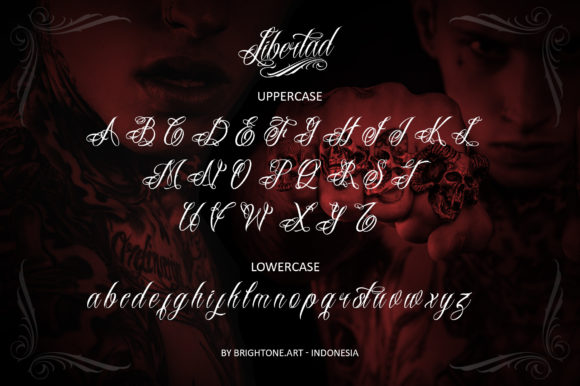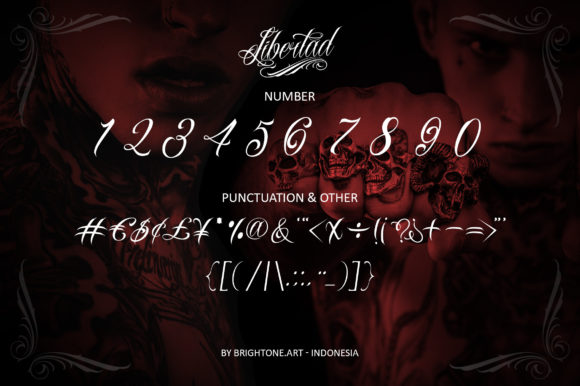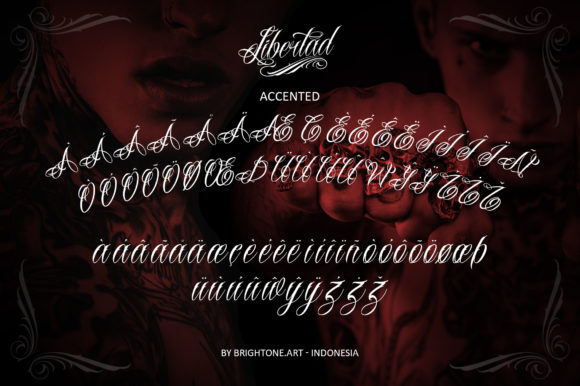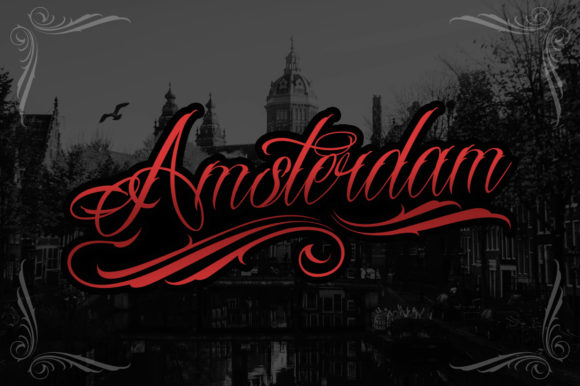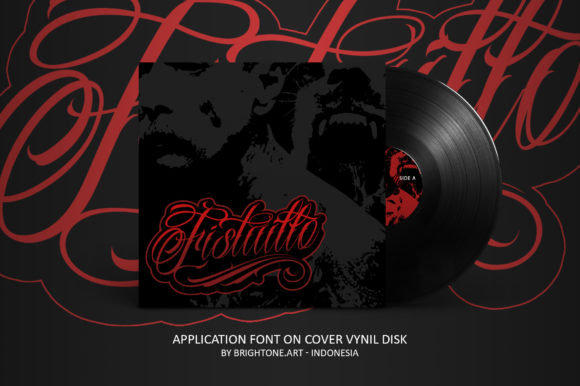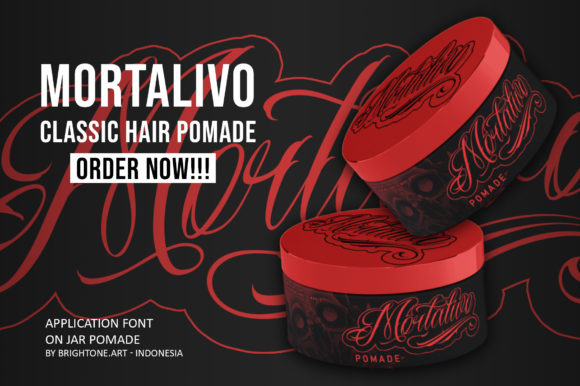
Introduction to Libertad Font
Have you ever stared at a blank canvas, eager to bring your tattoo design to life, only to be stopped by the perfect font eluding you? The hunt for the perfect typography can be a tedious and time-consuming process, but what if I told you that your search is over? Enter the Libertad Font, a masterpiece of handwritten elegance that will elevate your creative project to new heights.
As a valuable design resource, Libertad Font is more than just a pretty face. Its high-quality design and calligraphic influences make it a perfect blend of classic and contemporary styles, ensuring that your tattoo design stands out from the crowd. Whether you’re a seasoned designer or a newcomer to the world of typography, this font is sure to become a trusted companion in your creative journey.
Key Features of Libertad Font
- High-quality design resource suitable for various creative projects
- Unique characteristics include elegant lines, subtle flourishes, and a modern aesthetic, making it perfect for creative projects that require a touch of sophistication
Honest Review: Libertad Font
As a designer, I’m always on the lookout for high-quality design resources to enhance my creative projects. Recently, I stumbled upon the Libertad Font, and I’m excited to share my honest review.
What works well: ✨ The Libertad Font has a beautiful, elegant design that’s perfect for projects that require a touch of sophistication. The font is highly versatile and can be used for a wide range of creative projects, from editorial design to branding. The transparent background feature is also a great plus, allowing for seamless integration with other design elements.
- High-quality, elegant design
For the best results, use the Libertad Font with a transparent background to create a clean and modern design. You can also pair the font with other high-quality design resources to create a cohesive and visually appealing design.
Common Use Cases for the Libertad Font
The Libertad Font is perfect for a variety of creative projects, including business cards, logos, posters, and social media graphics. Its high-quality design and transparent background make it a great choice for any project where you want to make a lasting impression.